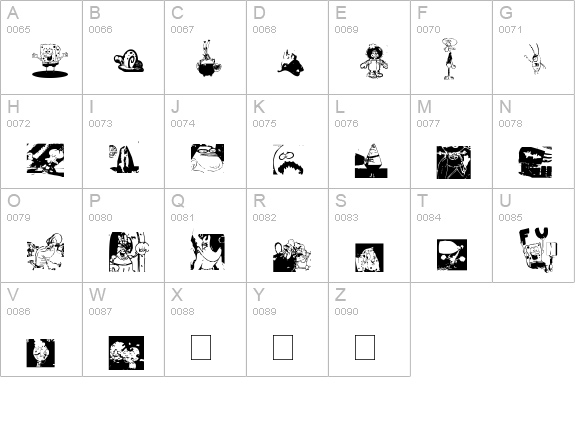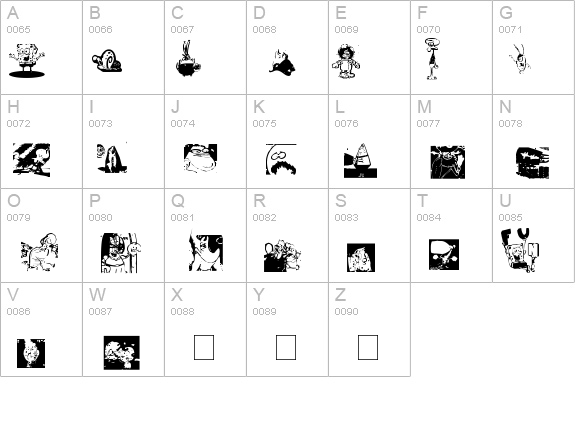
Spongebob Dingpants Font Details
Introducing Spongebob Dingpants font, a playful and vibrant typeface that captures the essence of everyone's favorite porous and happy-go-lucky sponge. This font is a must-have for all fans of the beloved animated series, as it brings to life the iconic charm and whimsy of the underwater world of Bikini Bottom. With its quirky and distinctive letterforms, Spongebob Dingpants font adds a touch of fun and nostalgia to any design project. Whether you're creating a birthday invitation, a children's book cover, or simply want to inject a dose of lightheartedness into your graphic designs, this font is the perfect choice. The best part? Spongebob Dingpants font is absolutely free! You can easily download it at FontsMarket.com, a reputable online platform for all your font needs. By making this font freely available, the creators have ensured that Spongebob enthusiasts of all ages can enjoy the whimsical charm of this typeface without any barriers. Spongebob Dingpants font comes in a variety of weights and styles, allowing you to experiment and play with different looks and moods. From bold and eye-catching headlines to delicate and playful body text, this font offers versatility and endless creative possibilities. So why wait? Dive into the underwater world of Spongebob Squarepants with Spongebob Dingpants font. Download it for free at FontsMarket.com and let your imagination run wild as you bring a splash of Bikini Bottom magic to your designs.